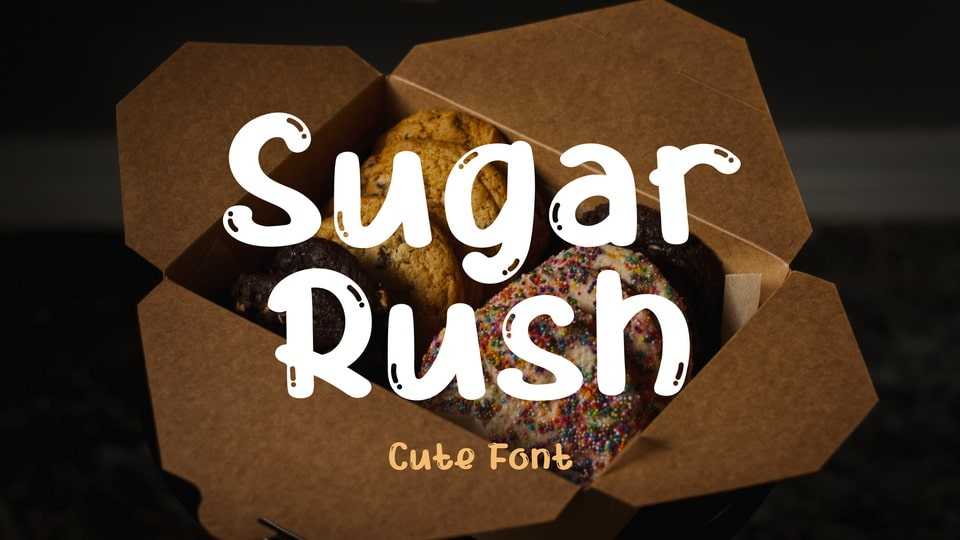
Download Sugar Rush font, a cute handwritten typeface. Suit perfect for kids books market, online games, flyers and event posters, school supplies font, poster, movie title, Youtube covers, Youtube thumbnails, social media page covers, and so on…